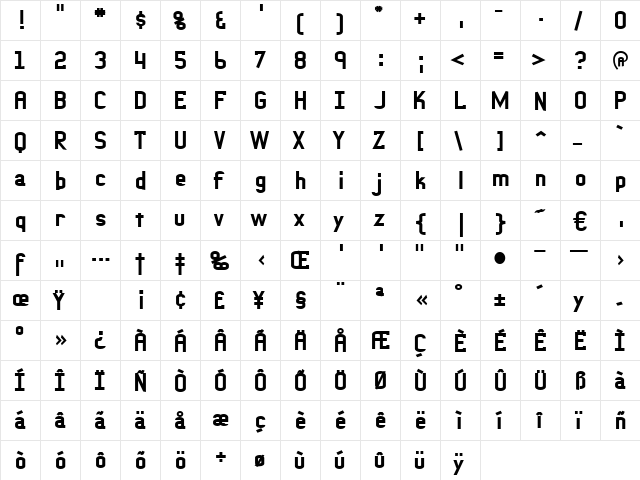
Quadriga Regular
Design Context for Quadriga Typeface
Quadriga takes a measured approach to typography — its balanced proportions and neutral character make it a reliable workhorse for both digital and print work.